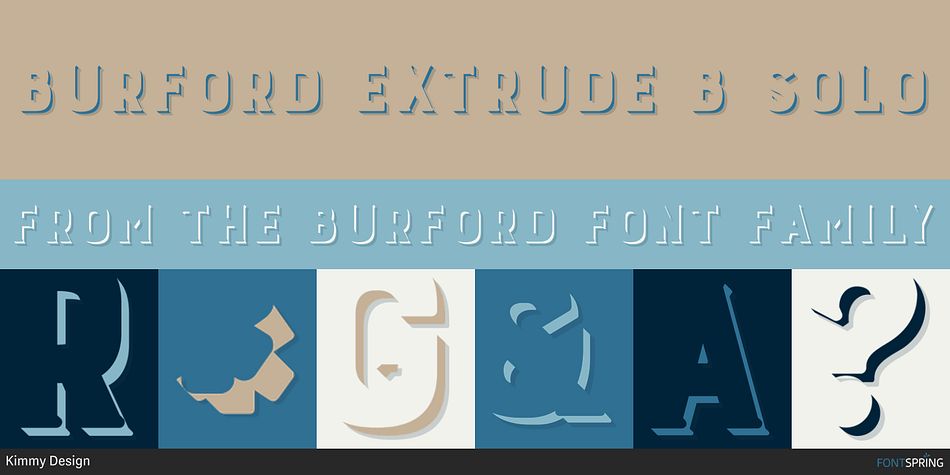
BURFORD EXTRUDE B SOLO
Designed by Kimmy Kirkwood, Burford is a display and dingbat font family. This typeface has eighteen styles and was published by Kimmy Design.
Burford Pro package comes with all 18 layering fonts including 5 base layers, 3 top layers, 5 bottom layers and 2 sets of graphic elements. They are strategically made to build on top of each other, creating a cohesive and easy to use layer-based family. Each font also comes with a set of Stylistic Alternatives for letters A C E F G H P Q R. Burford Basic package is created for users who don’t have access to premiere design programs (such as Illustrator, InDesign, Photoshop, etc) and are unable to use the layering effect. Burford can still be a powerful tool as each font can also be used on its own. It includes every font file not needed for the layering effect. (Include 13 fonts - Burford Basic, Dots, DropShadow, Extras Set A, Extras Set B, Extrude C, Inline, Line, Marquee, Outline, Stripes A and Stripes B). The Burford Extras set uses all basic keyboard characters - around 100 total elements per set. They are designed to go specifically with Burford and complement its varying styles perfectly. The set includes: banners, borders, corners, arrows, line breaks, catchwords, anchors and many more!